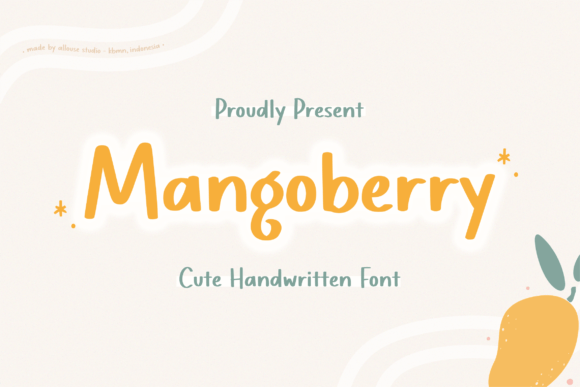
Feast your eyes on Mangoberry Font, the handwritten wonder that spells magic on any creative canvas. Created by the artistry of allouse.studio, Mangoberry is not just a font; it's an invitation to a visual feast.
Step into a realm where letters dance with delight, holding hands with whimsy and playfulness. Mangoberry's playful charm adds zing to your creations, making them burst with vibrancy and energy. Its unique rotated text feature opens doorways to endless possibilities, transforming ordinary words into captivating centerpieces.
Picture this: your product packaging adorned with Mangoberry's enchanting script, whispering tales of elegance and sophistication. Your branding projects will radiate a distinct personality, captivating audiences with their charm and uniqueness. Social media posts will pop with vivacity, drawing attention like magnets.
Mangoberry is the perfect playmate for weddings, adding a touch of enchantment to your special day. Its whimsical nature brings joy and laughter, transforming vows into timeless treasures. And oh, the wonders it can work in magazines! Articles and headlines will leap off the page, demanding attention with an allure that's impossible to resist.
But Mangoberry's magic doesn't stop there. Use it to express words above backgrounds, and watch as they transform into captivating visual masterpieces. Its versatility knows no bounds, making it the perfect choice for a wide range of creative projects.
Mangoberry Font, a handwritten masterpiece, awaits your imagination's embrace. Its playful spirit and endless possibilities are ready to ignite your creativity and leave a lasting impression. Dive into the world of Mangoberry and let your designs flourish with enchanting beauty.